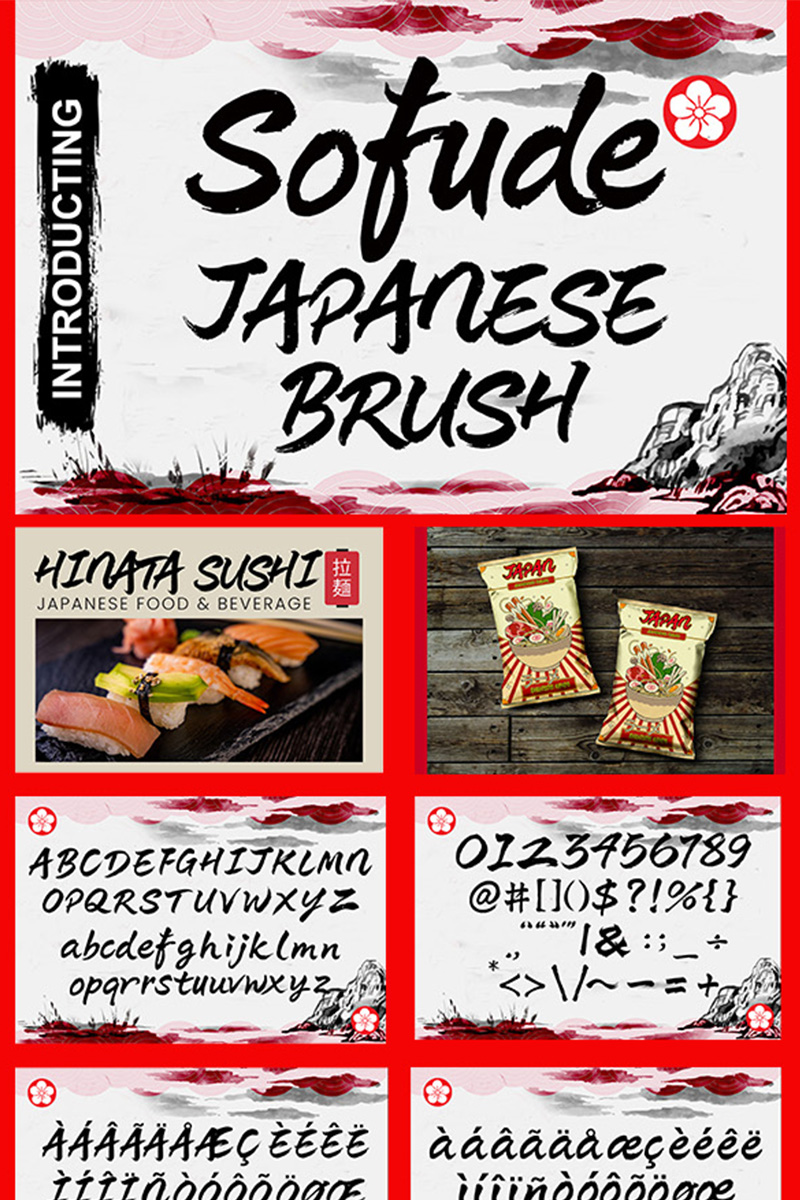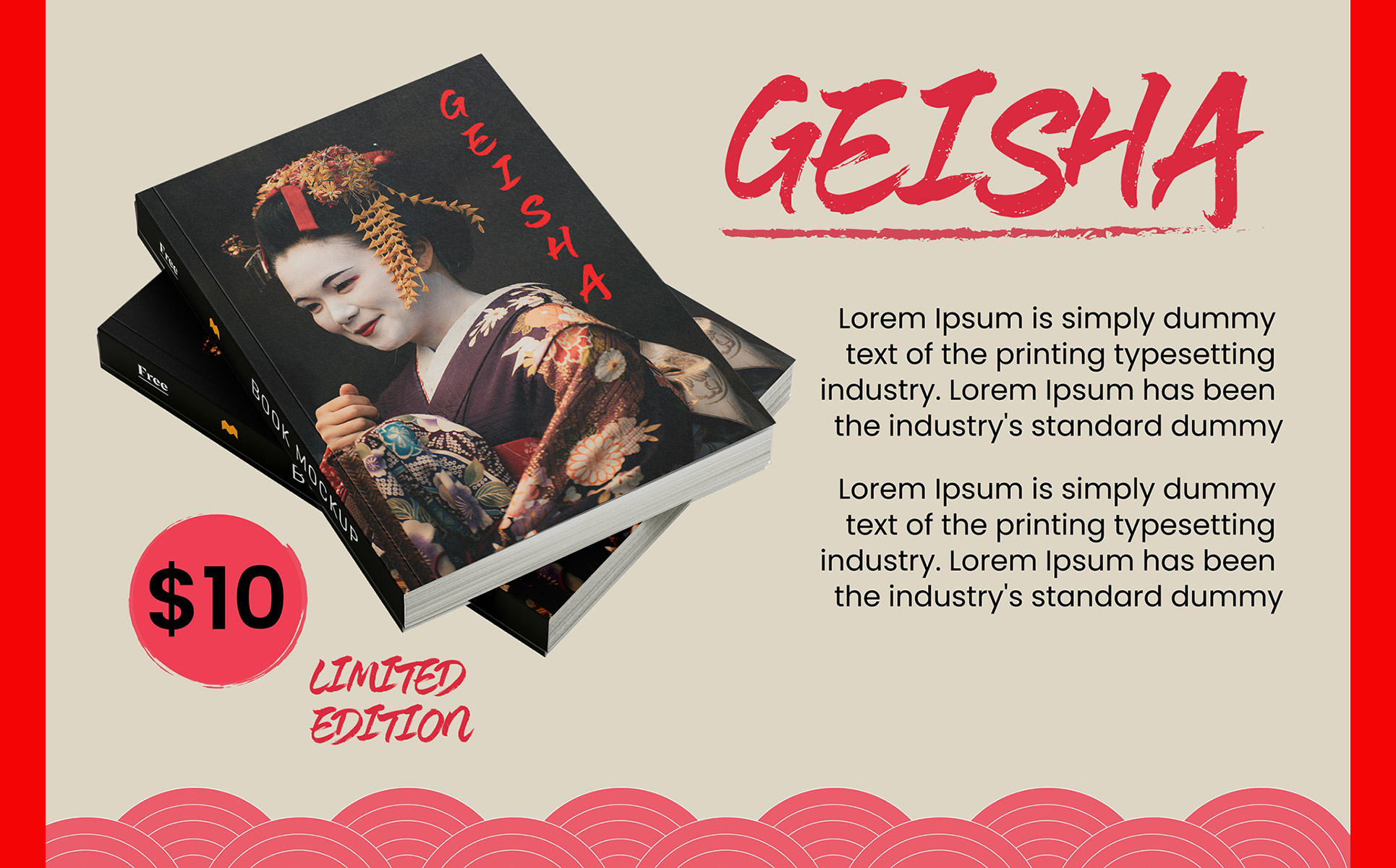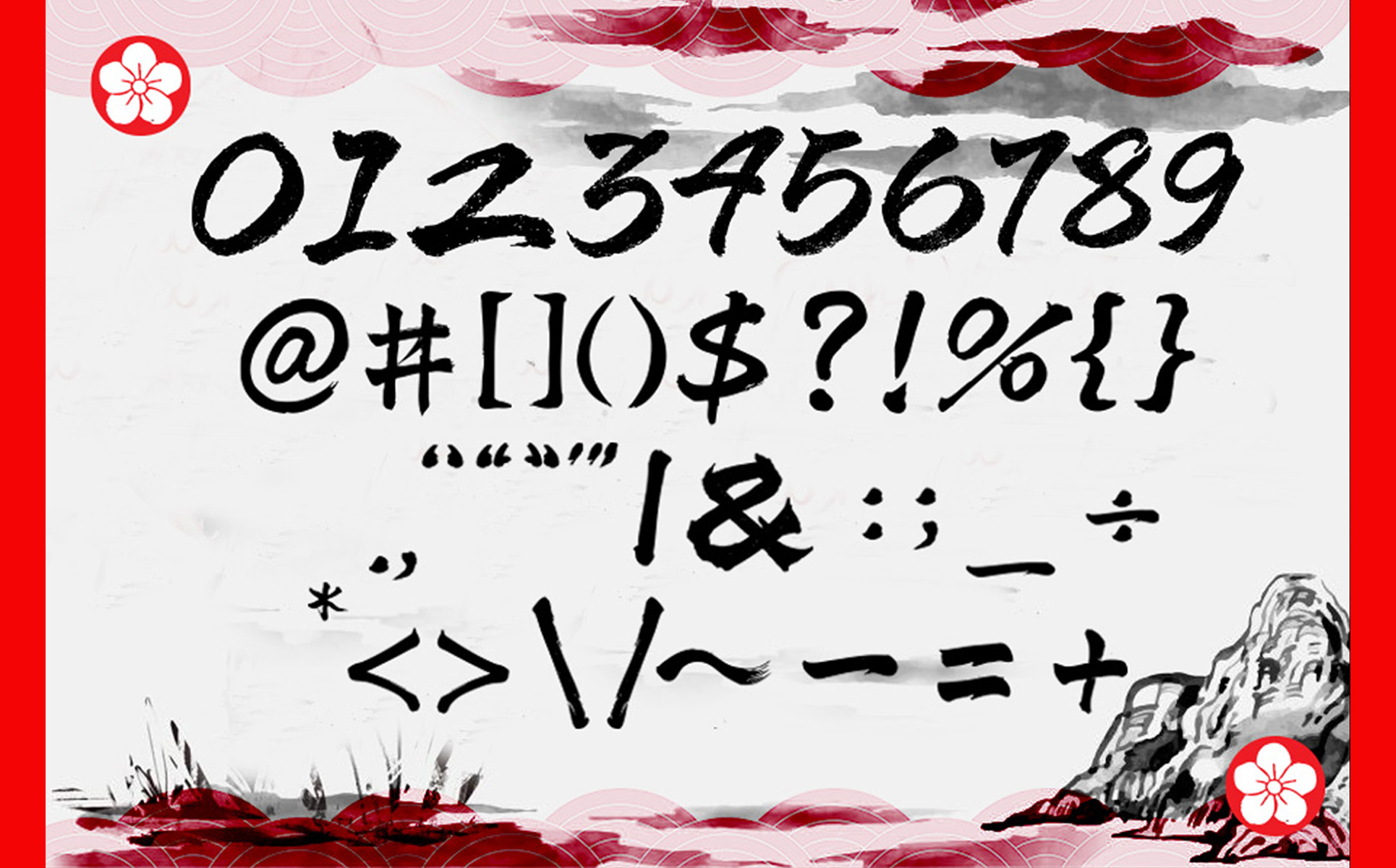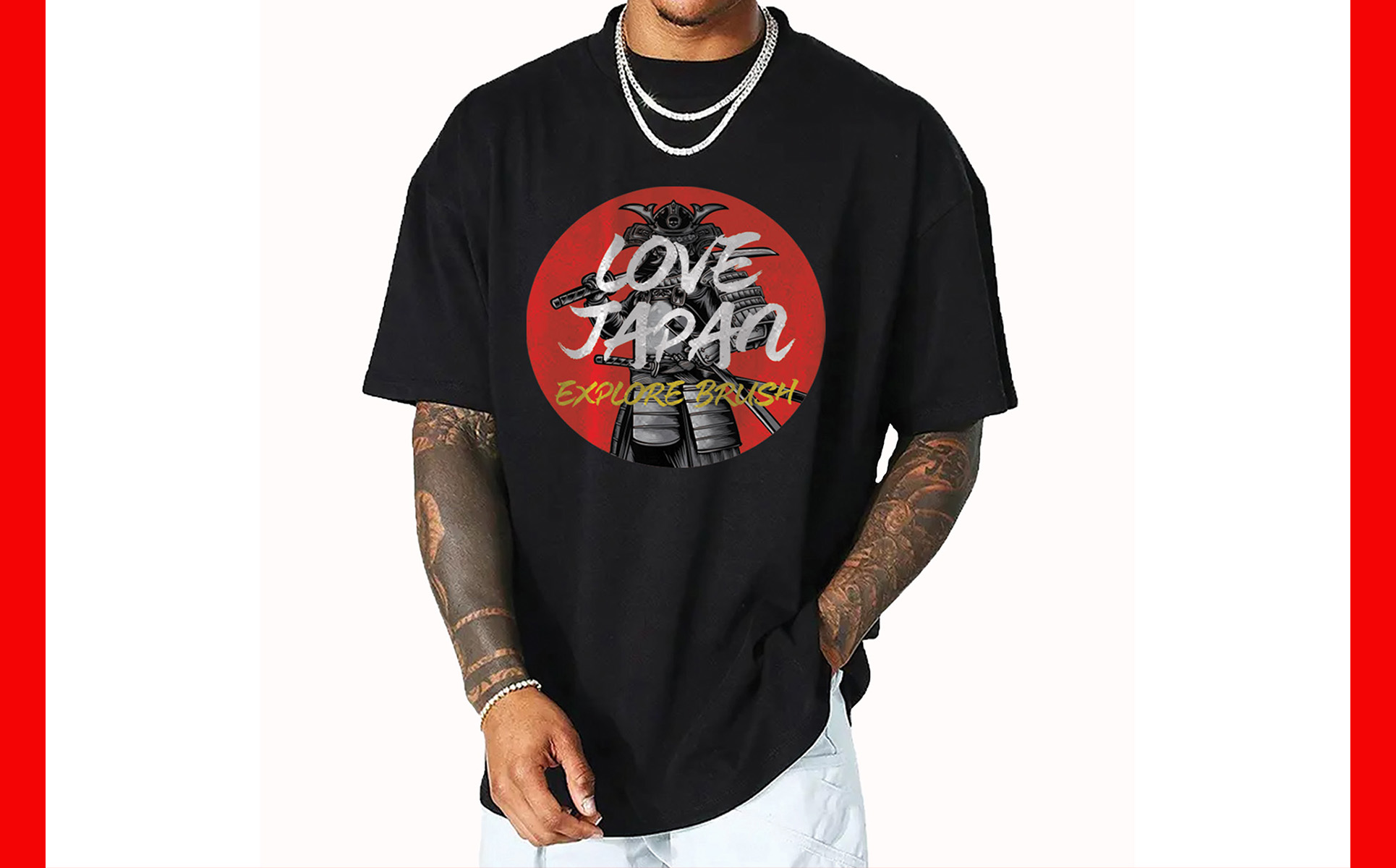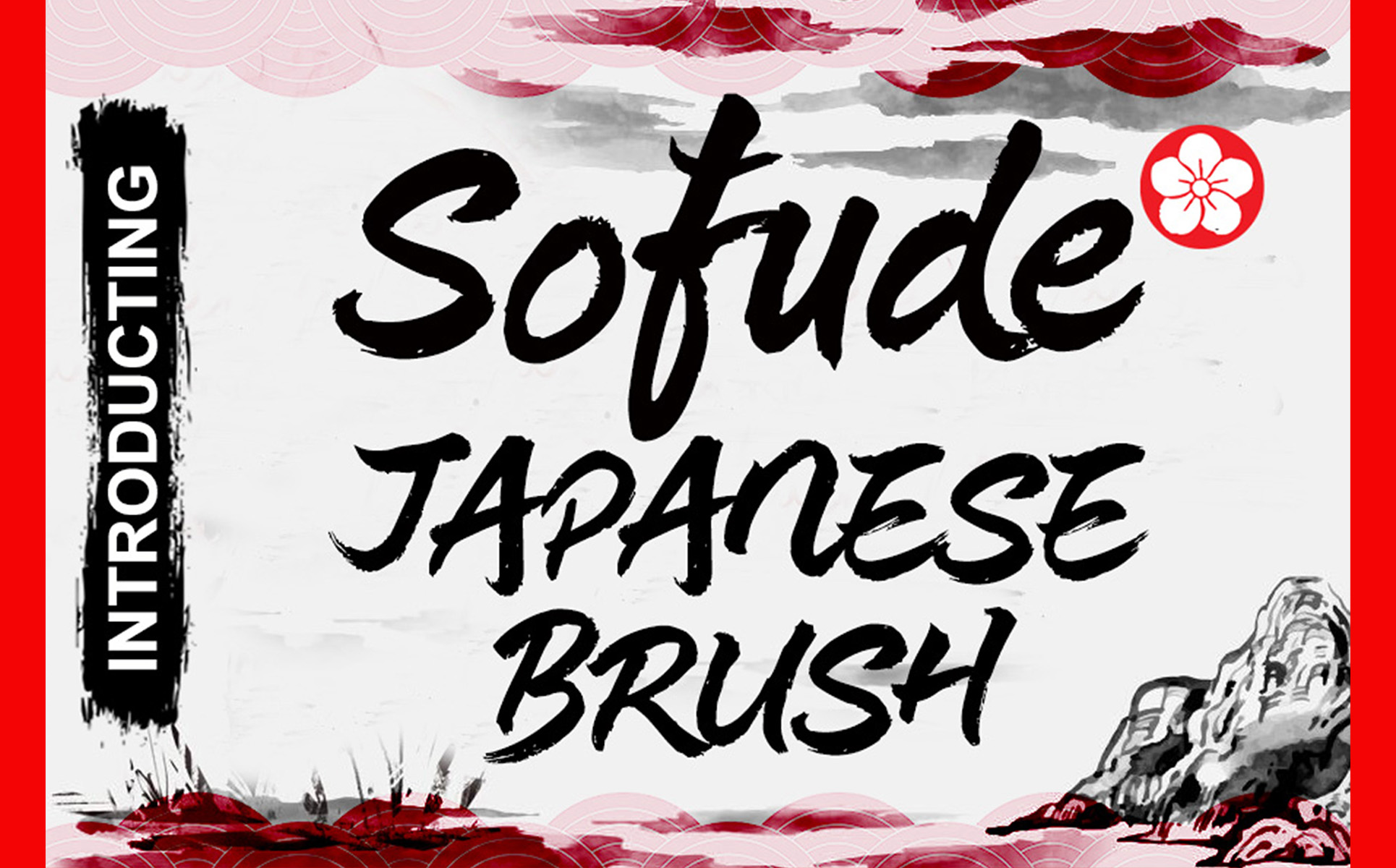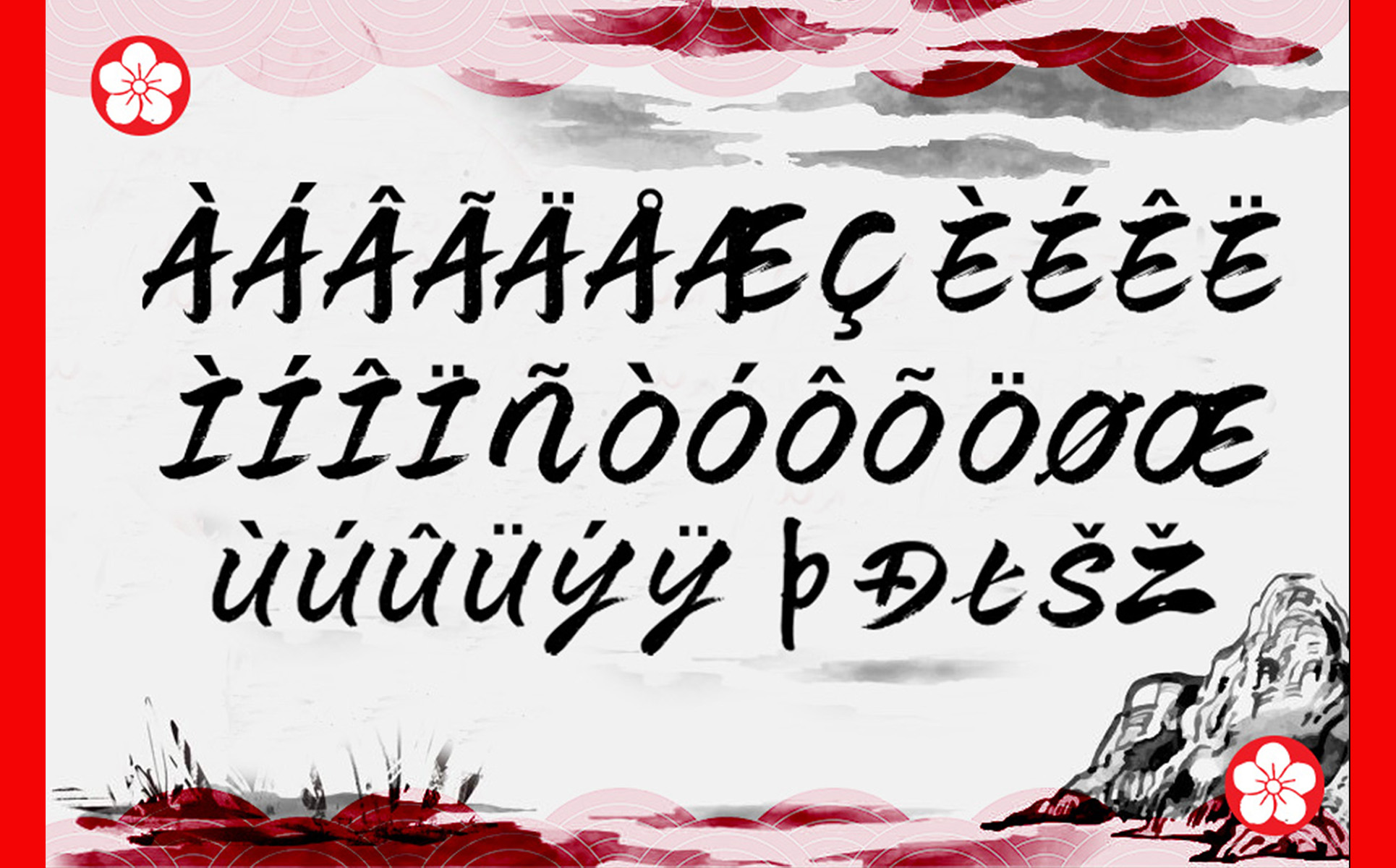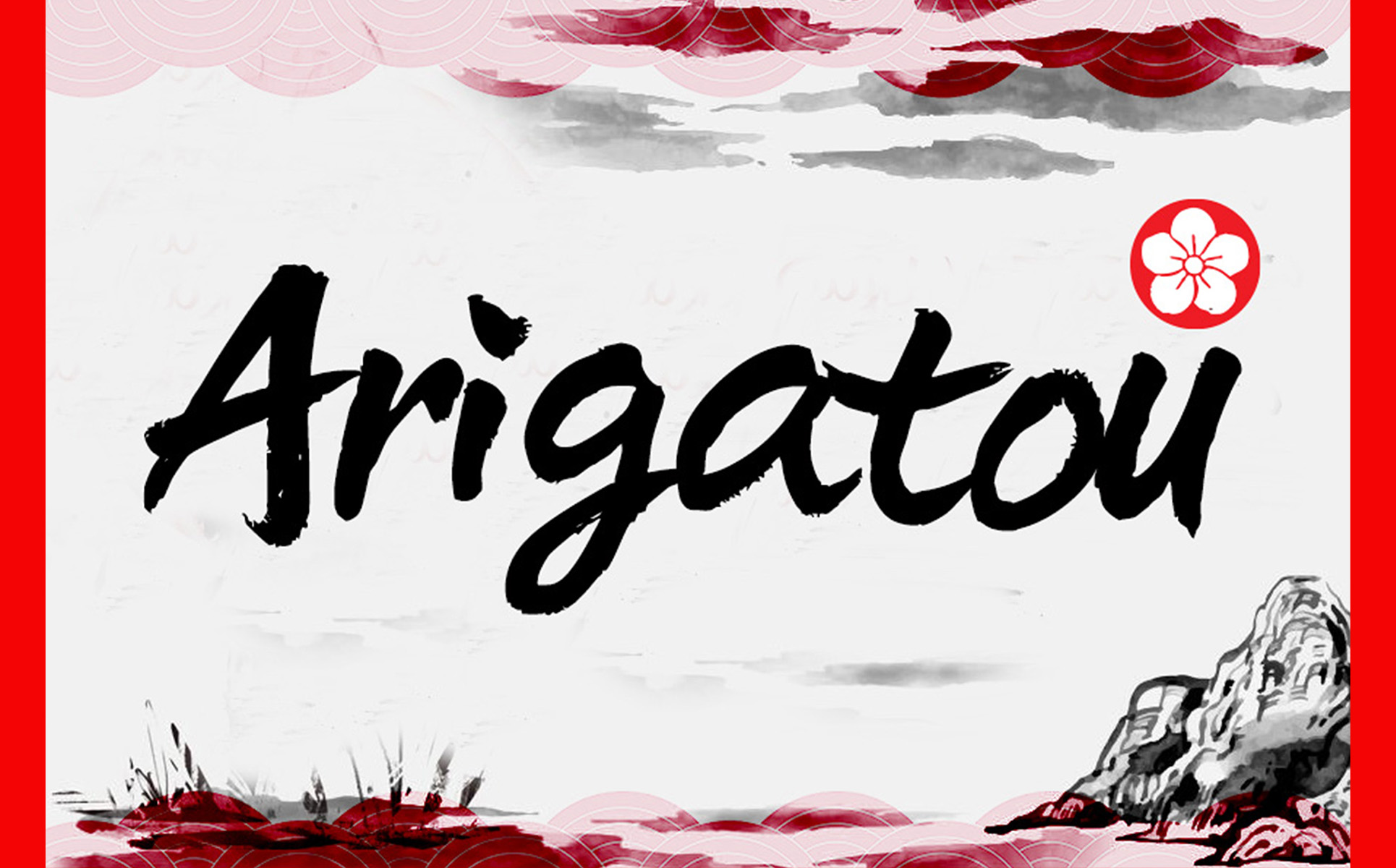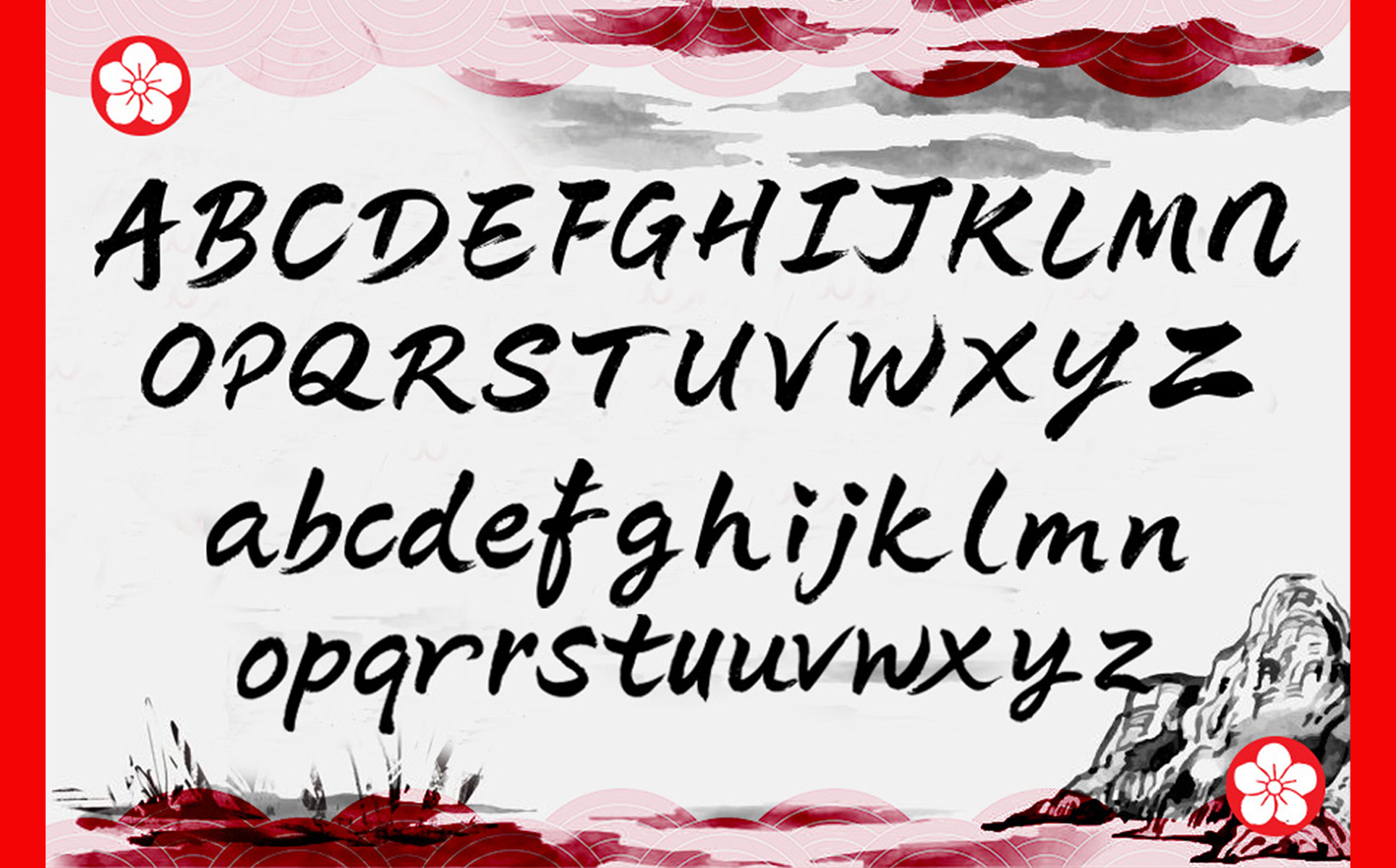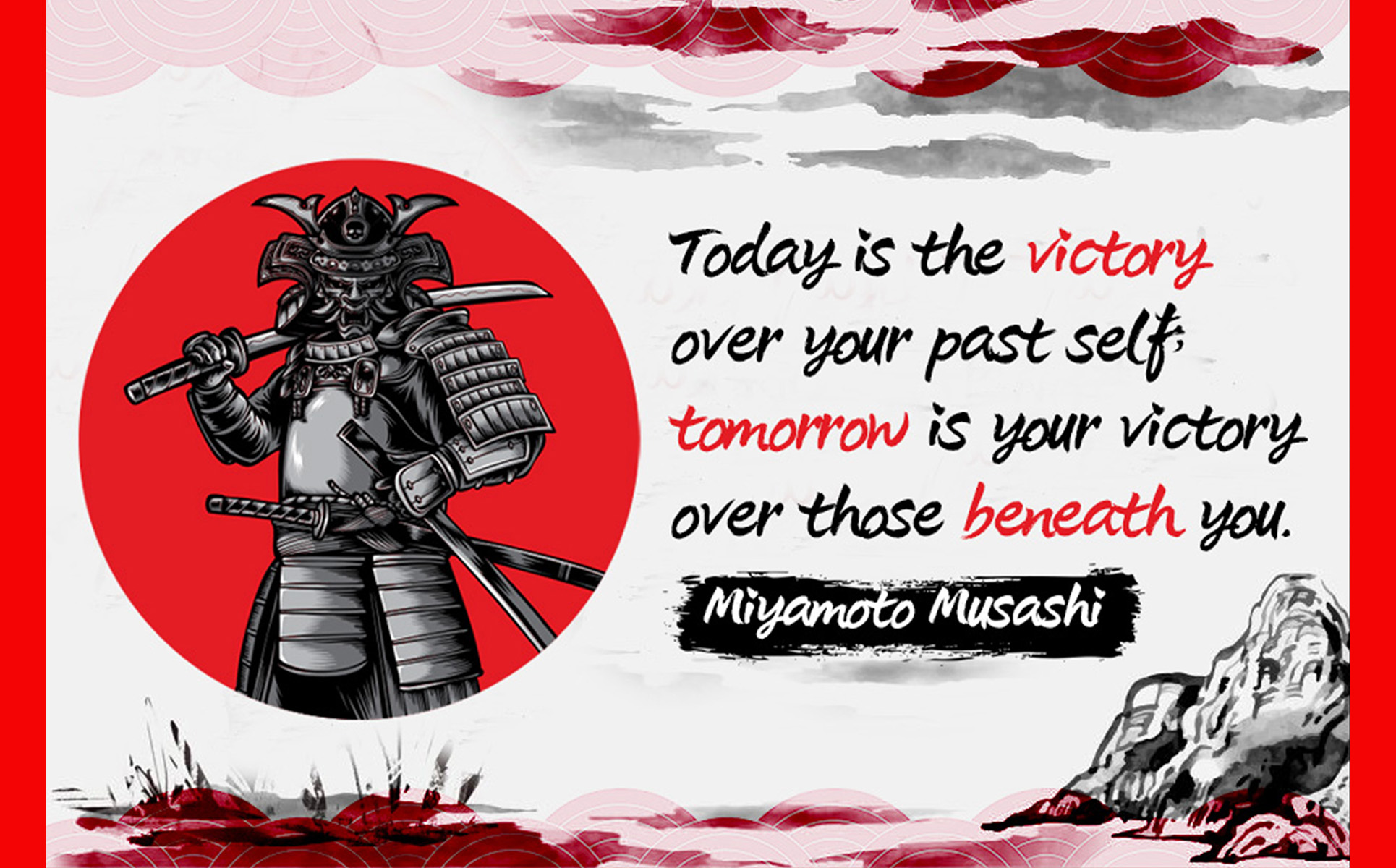
Sofude Japan Brush Font Style
Sofude Script is a brush-style Japanese calligraphy font inspired by the fluid elegance of Sosho. Perfect for branding, tattoo designs, and creative projects, this font blends tradition with expressive modern strokes.